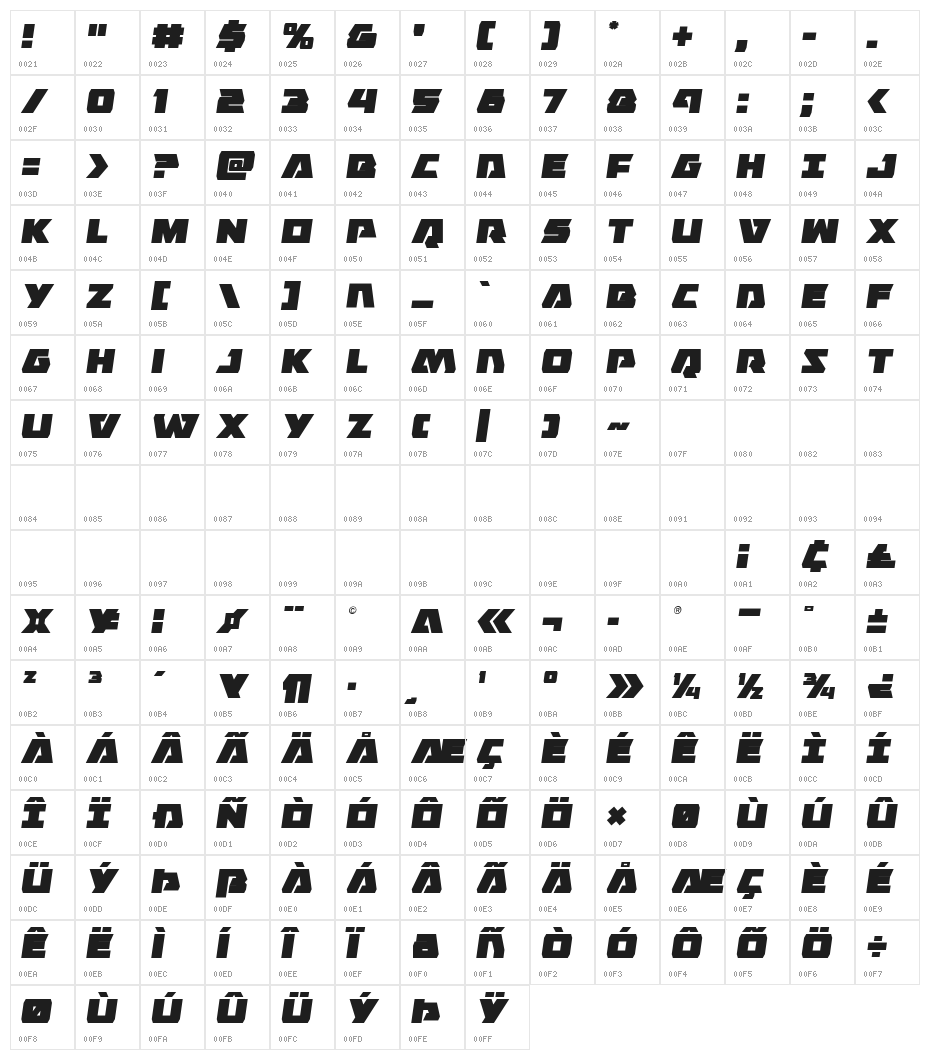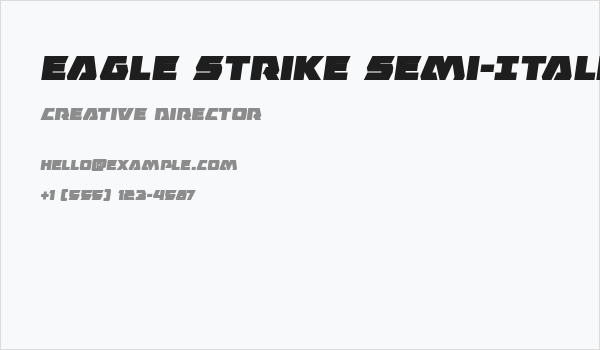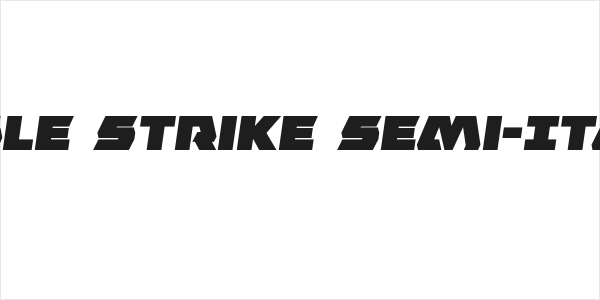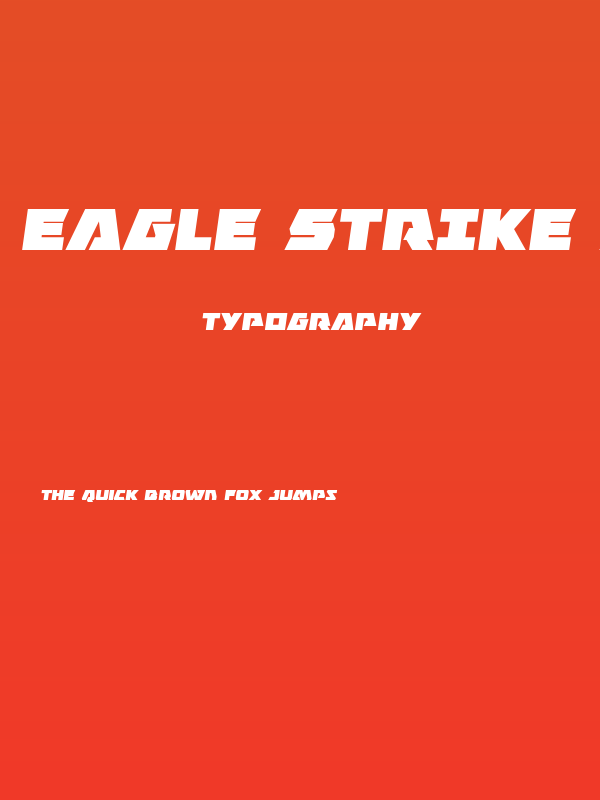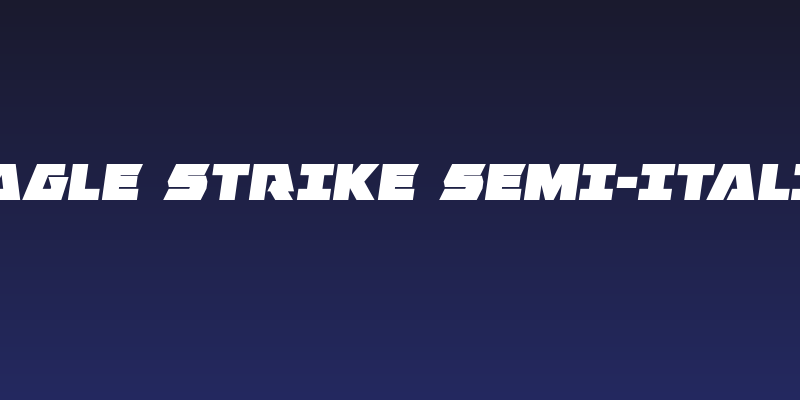
Eagle Strike Semi-Italic Font
Eagle Strike Semi-Italic Description
This font features a bold and dynamic style with sharp, angular edges and a semi-italic slant, giving it a sense of motion and energy. The characters are robust and impactful, making them ideal for attention-grabbing designs. The uppercase and lowercase letters maintain a consistent geometric form, while the numbers and special characters follow the same bold aesthetic. The overall design is modern and aggressive, suitable for projects that require a strong visual presence.
| Proposed Projects | Ideal for sports branding, action-themed posters, video game titles, and dynamic logo designs. |